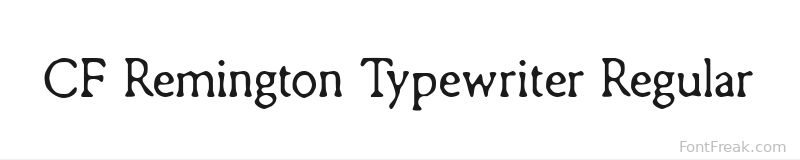
CF Remington Typewriter Regular
About CF Remington Typewriter Regular
CF Remington Typewriter Regular is a distinctive display font that evokes the nostalgia of vintage typewriters. Crafted by Cloutierfontes, this font carries a unique charm that makes it stand out in various design projects. With its serif characteristics, CF Remington Typewriter Regular features a moderate stroke weight and subtle contrast, giving it a classic yet approachable feel. The spacing is well-balanced, allowing for easy readability while maintaining its vintage aesthetic. This font also showcases slight decorative elements that mimic the imperfections of traditional typewriting, adding to its authentic appeal.
This font is ideal for a wide range of applications, including wedding invitations where a touch of elegance is desired, movie posters that aim to capture a retro vibe, restaurant menus that want to convey a cozy atmosphere, and branding materials for artisanal businesses looking to evoke a sense of craftsmanship. Additionally, it can be effectively used in personal projects such as journals or blogs that focus on storytelling or nostalgia.
The target audience for CF Remington Typewriter Regular includes graphic designers seeking to add a unique typeface to their toolkit, small business owners who wish to create a memorable brand identity, and content creators looking for an eye-catching font for their projects. The font's vintage flair appeals to those who appreciate classic design elements, making it a versatile choice for many creators.